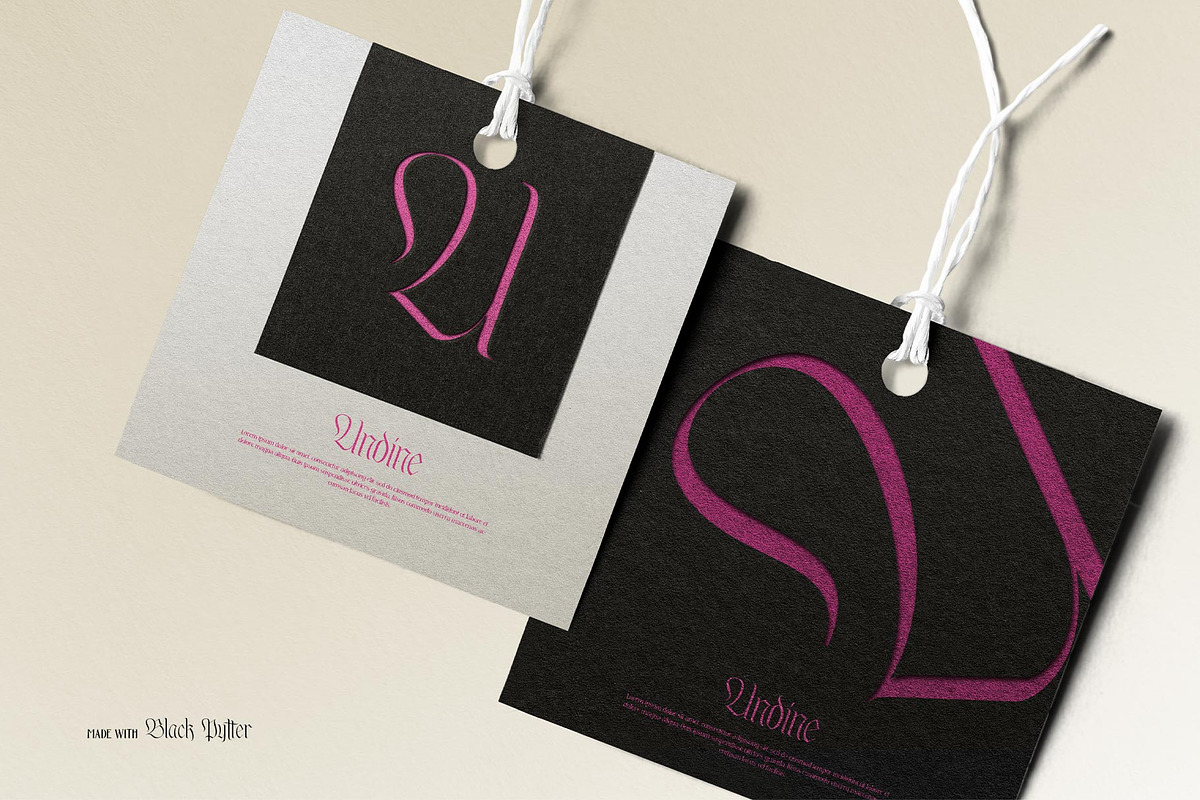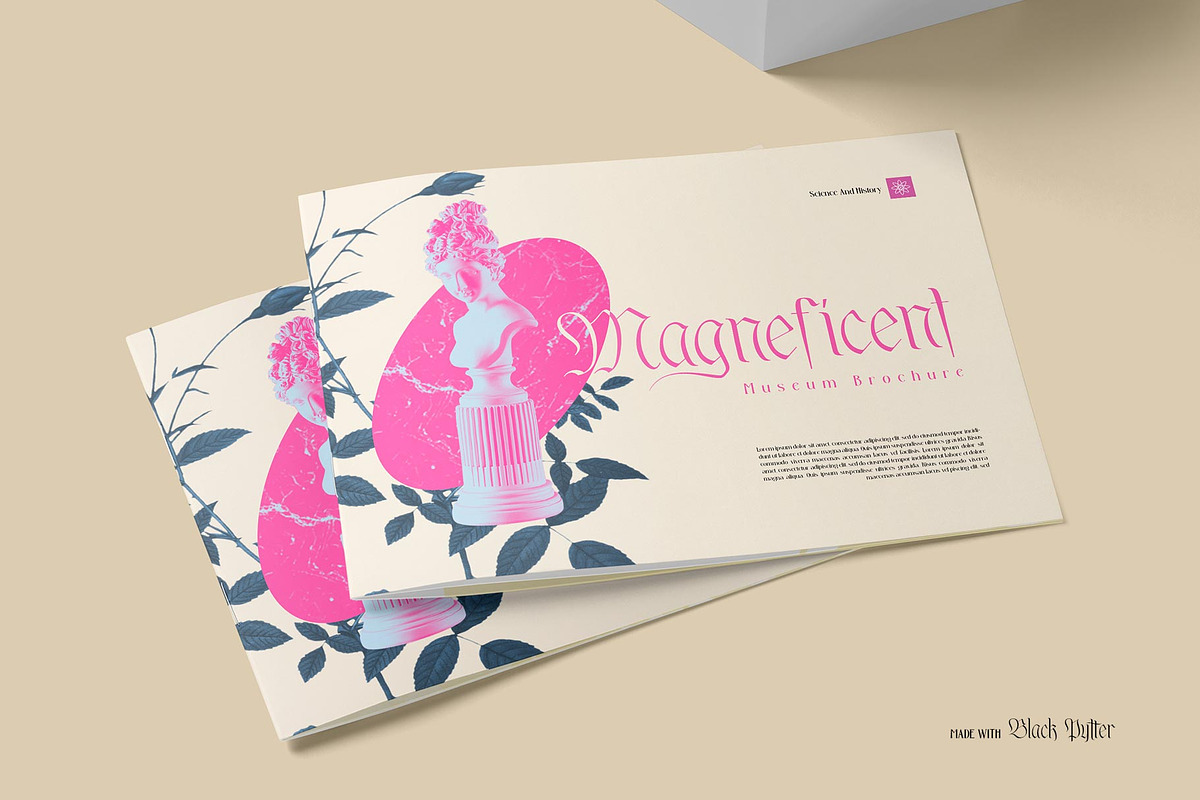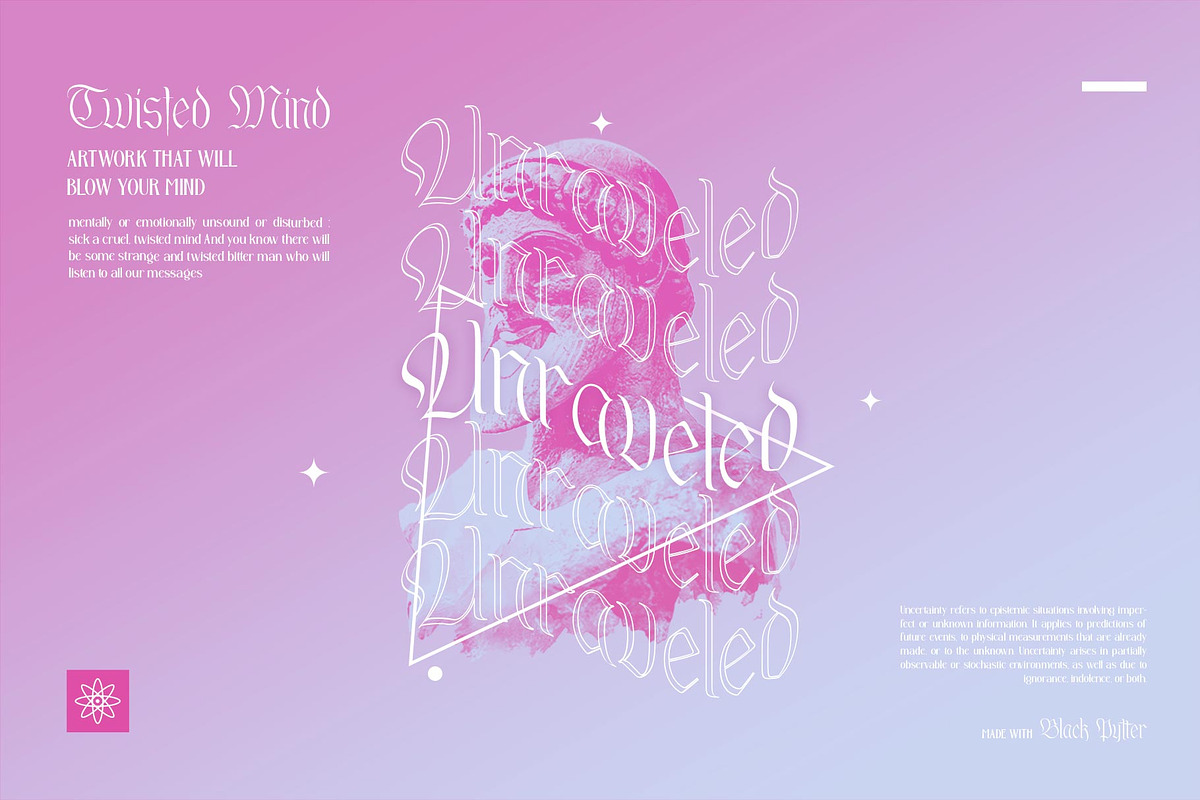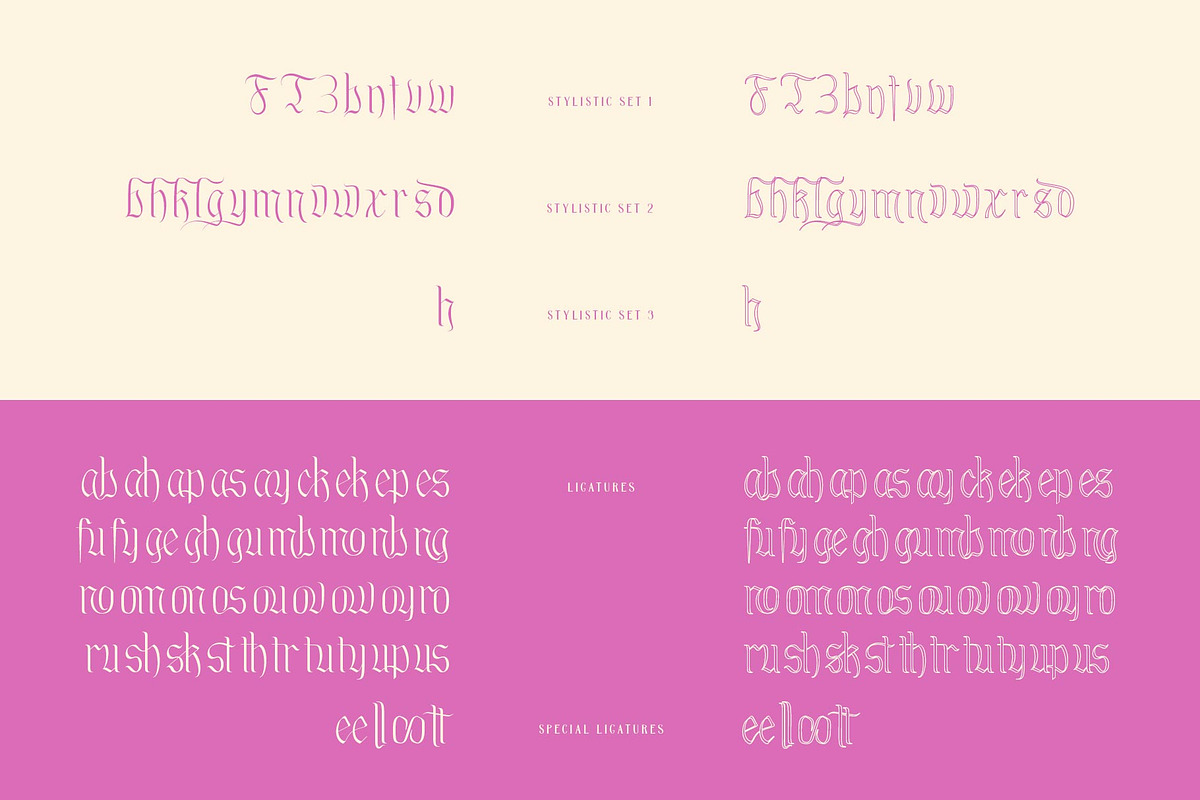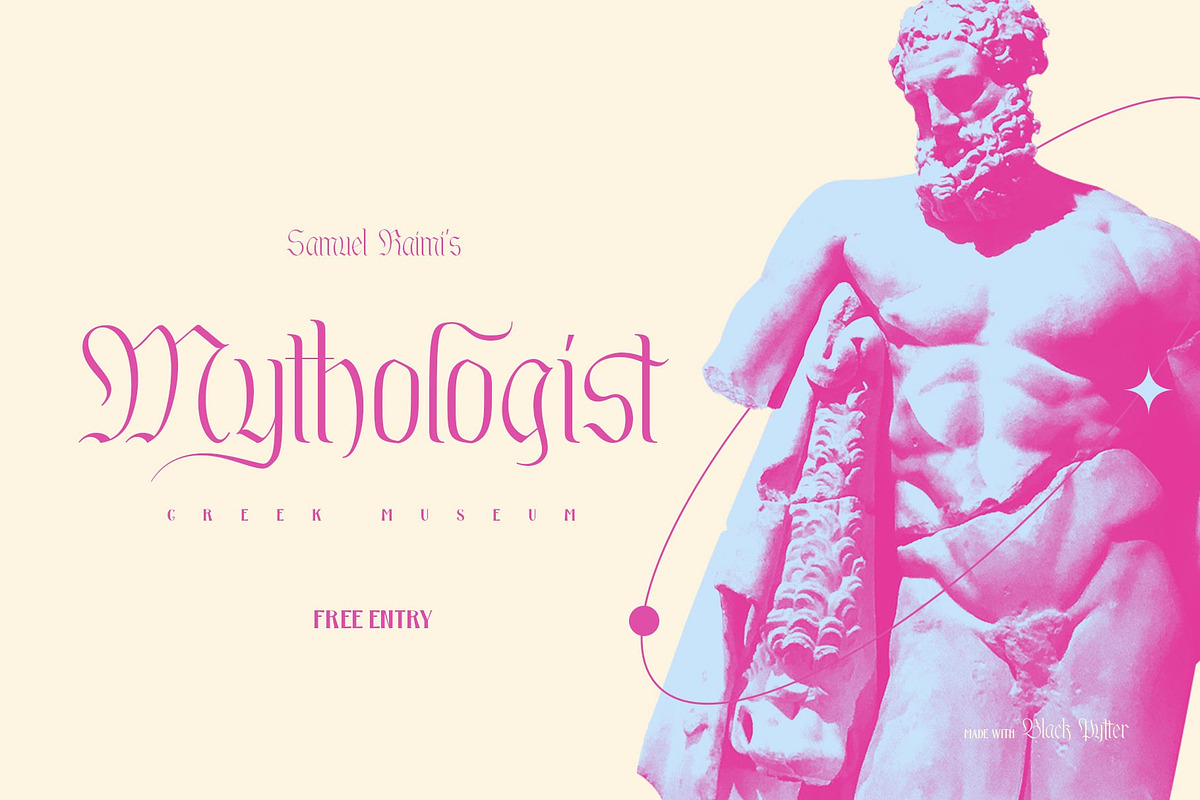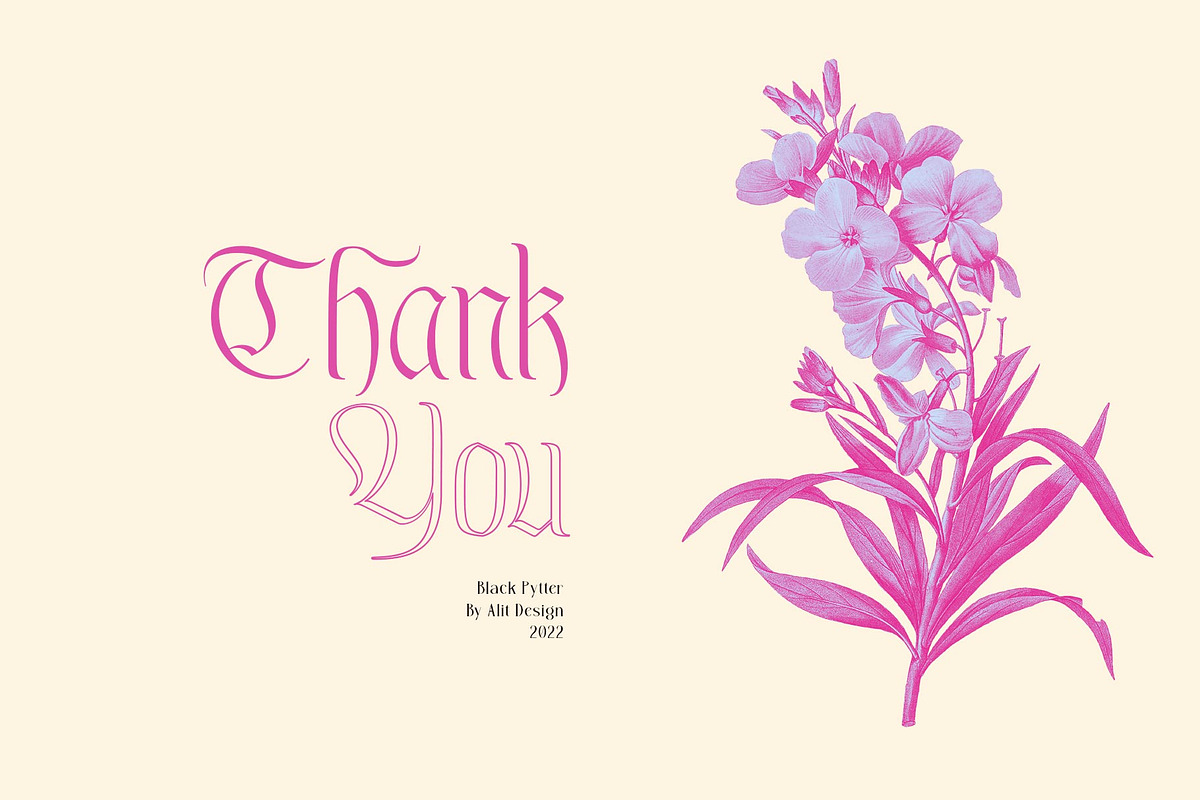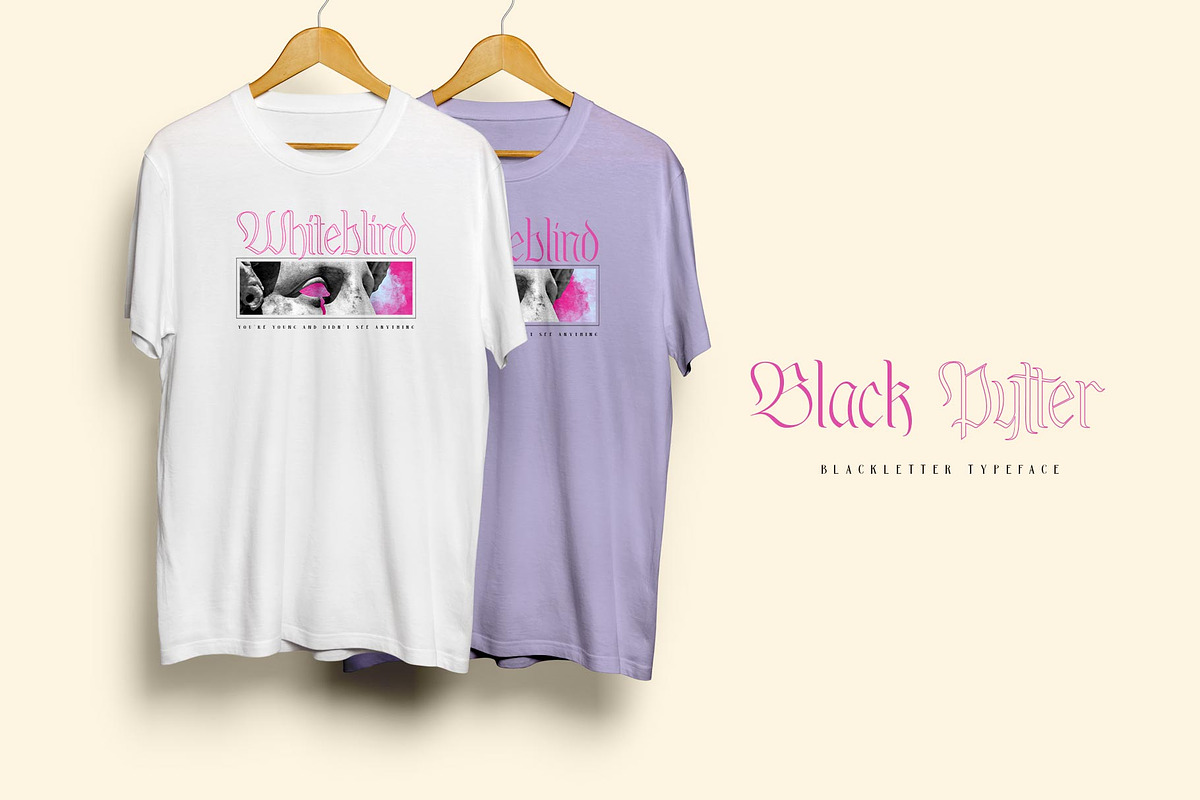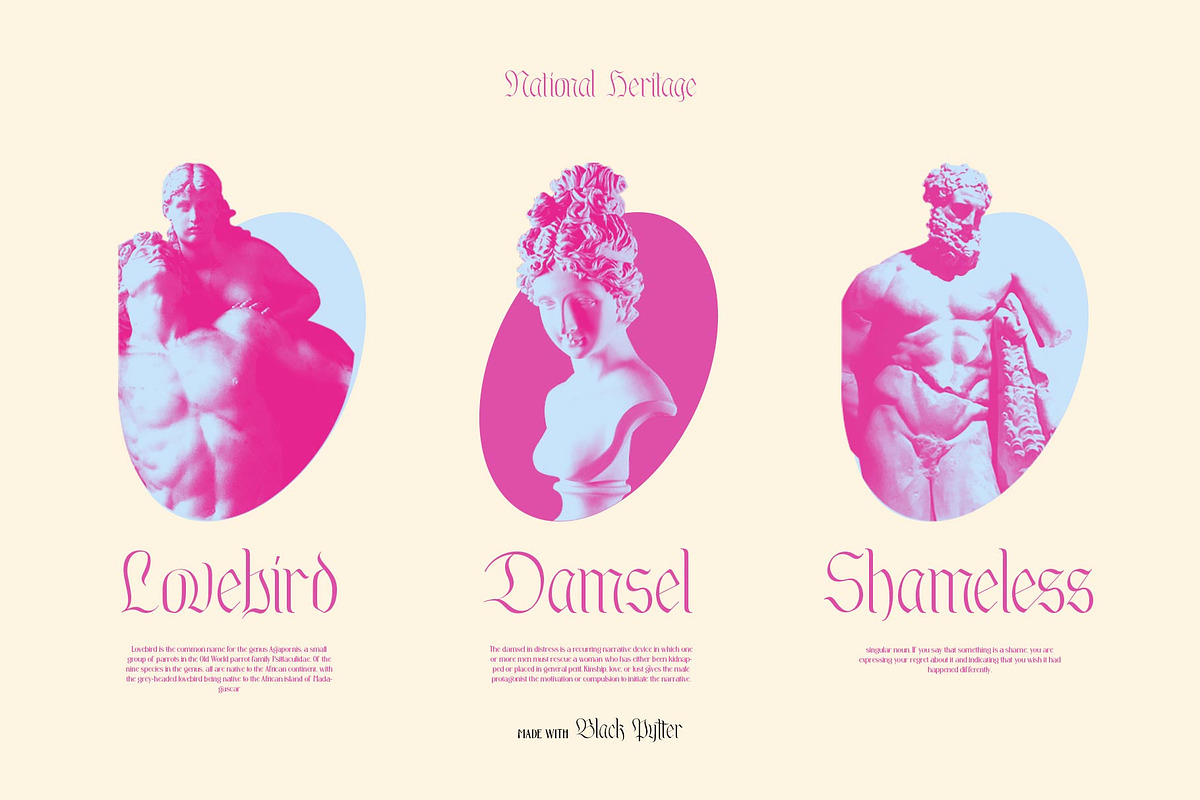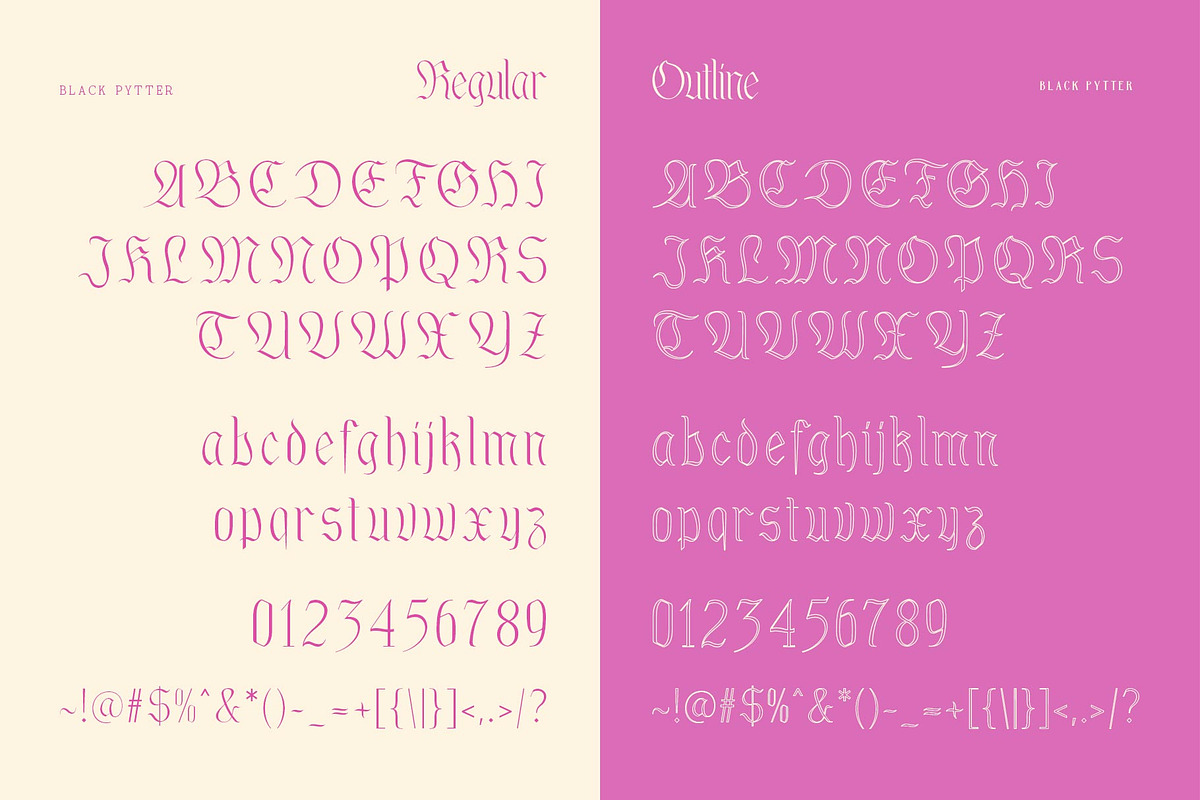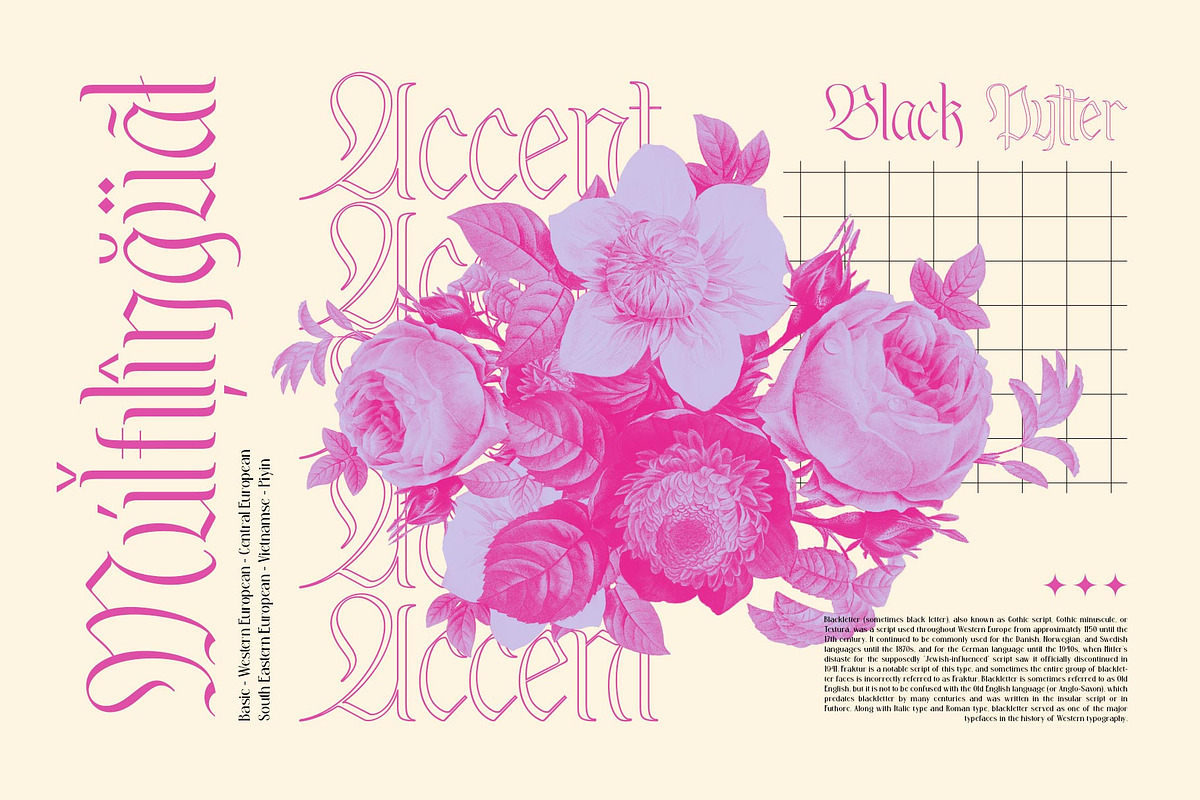
Black Pytter Typeface
✒️Black Pytter Brave✒️is a font inspired by the Blackletter typeface, made with a modern impression but still looks strong and unique. Supported by alternative options such as swash, ligature and alternative characters, making The Black Pytter font very easy to create designs with strong or dark themes. In addition, The Black Pytter font is also supported with multilingual characters that can be used in several international languages.
The Black Pytter font is very suitable for use in making music album cover designs, tattoo logos, wishkey labels, packaging pomades and so on which are made with dark and strong concepts.